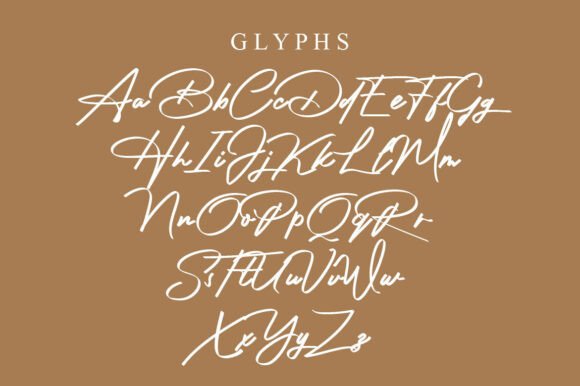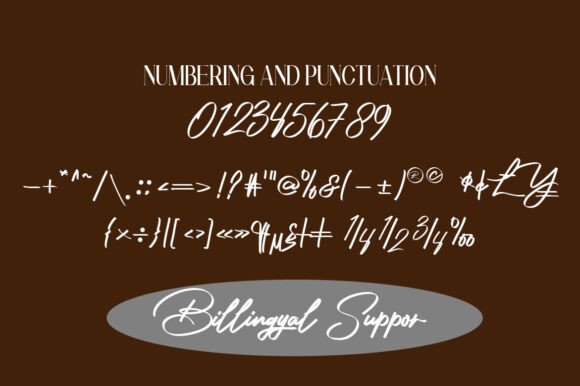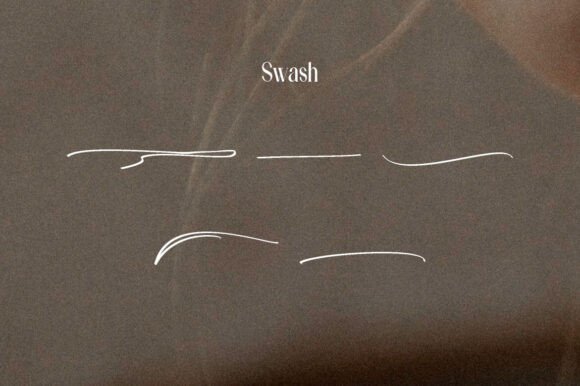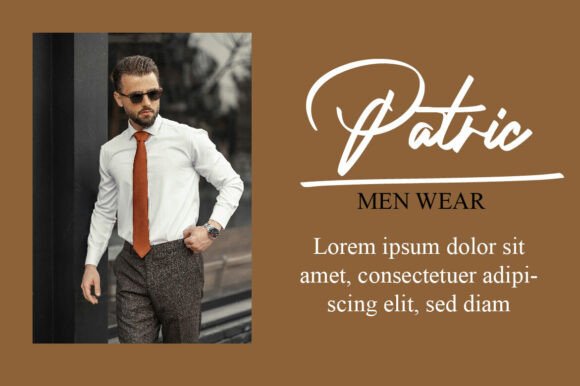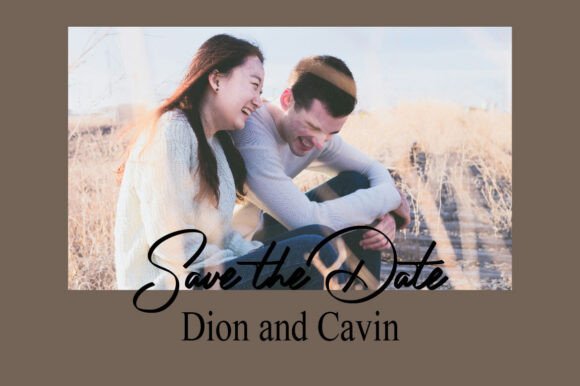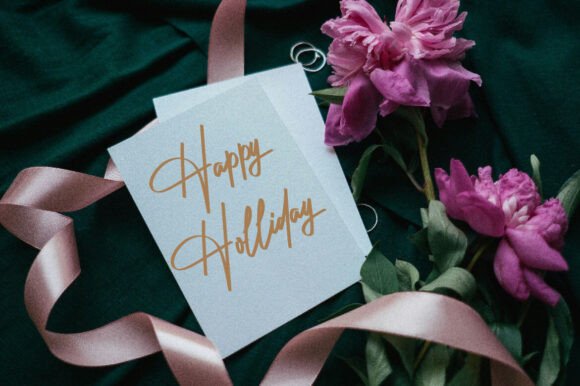
The Blessing Day Font: A Modern Script for Creative Projects
Have you ever been in the middle of a design project, and suddenly, you’re stuck on finding the perfect font? I recall a recent experience where I was working on a wedding invitation design, and my client specifically asked for a modern, simple yet authentic script font. After hours of searching, I stumbled upon the Blessing Day font, and it instantly became my go-to choice. In this article, I’ll share with you why I fell in love with this font, its features, and how to make the most out of it in your creative projects.
What is Blessing Day Font?
Blessing Day font is a beautiful handwritten script font designed for a wide range of creative applications, including branding, signature, wedding invitations, promotion, product packaging, and more. This font is characterized by its modern simplicity and authentic feel, making it perfect for designers, crafters, and creative hobbyists looking for a versatile and elegant script font.
The Good ✨
- ✅ Modern and Simple: Blessing Day font boasts a clean and contemporary design that will elevate your projects with a touch of elegance.
- ✅ Authentic Feel: Despite its simplicity, the font maintains an authentic, handwritten feel that adds a personal touch to your designs.
- ✅ Versatile: It’s suitable for a wide range of applications, from wedding invitations to product packaging, making it a valuable addition to your font library.
The Not-So-Good 🤔
- ⚠️ Limited Character Set: While Blessing Day font includes a variety of characters, it may not have extensive language support or special characters, which could be a limitation for some projects.
- ⚠️ Requires Attention to Kerning: As with many script fonts, you might need to adjust the kerning to ensure that your text looks its best, especially at smaller sizes.
Blessing Day font comes with a range of OpenType features, glyphs, and stylistic alternates that can enhance your designs. Here’s how to access them:
The Story Behind Blessing Day Font
Blessing Day font was inspired by the beauty of everyday moments and the elegance of handwritten scripts. The designer aimed to create a font that captures the essence of modern simplicity while maintaining an authentic, personal feel. The result is a versatile font that can be used in a wide range of creative projects.
Q: What is Blessing Day font best used for?
A: Blessing Day font is versatile and can be used for branding, wedding invitations, promotions, product packaging, and more.
Q: Is Blessing Day font suitable for body text?
A: While Blessing Day font is beautiful, it’s best used for headings or short paragraphs due to its script nature and potential readability issues at smaller sizes.
Q: Does Blessing Day font include OpenType features?
A: Yes, Blessing Day font comes with OpenType features, including glyphs and stylistic alternates, which can enhance your designs.